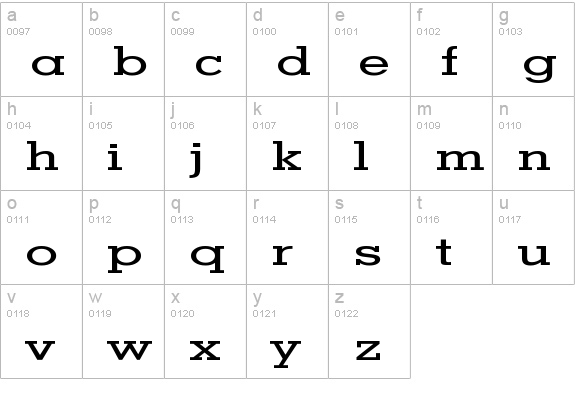
Geo Extended Normal is the standard, neutral, extended-width variant in the Geo typeface family \xE2\x80\x94 well suited to general body text, paragraphs, and standard typographic work.
Geo Extended Normal font is a stylish and modern typeface that is perfect for a wide range of design projects. With its clean lines and sleek appearance, this font exudes a sense of sophistication and professionalism. The extended characters add a unique touch to any text and make it stand out from the crowd. What's even better is that Geo Extended Normal font is available for free download at FontsMarket.com. Whether you're working on a website, a poster, a logo, or any other design project, this font is sure to elevate your work to the next level. Don't miss out on the opportunity to enhance your designs with this elegant and versatile typeface. Download Geo Extended Normal font today and take your creations to new heights!